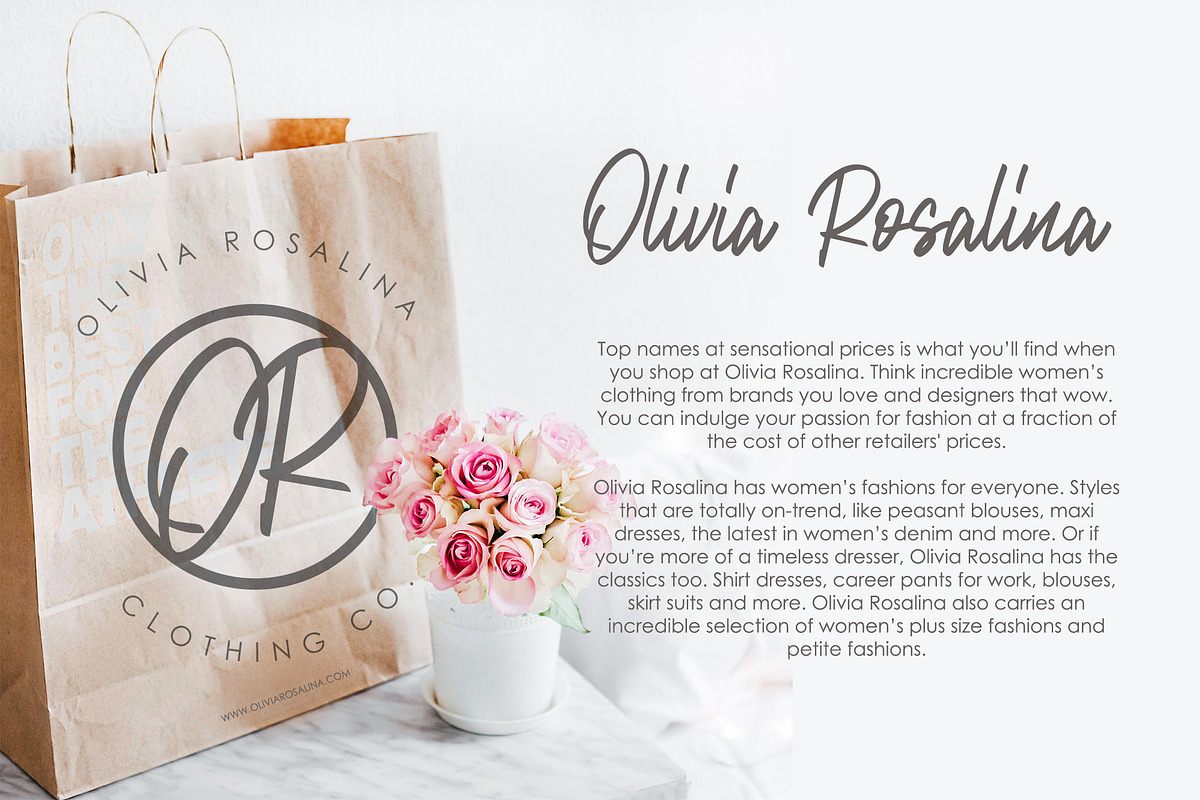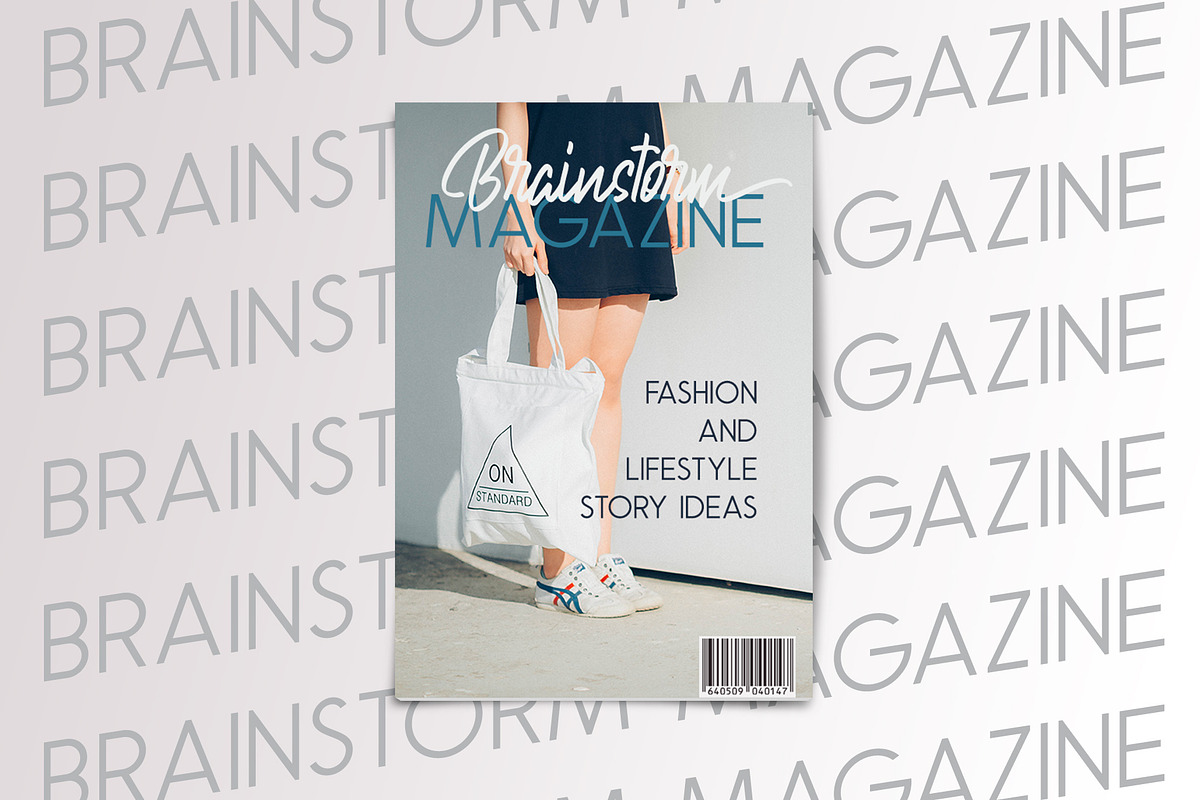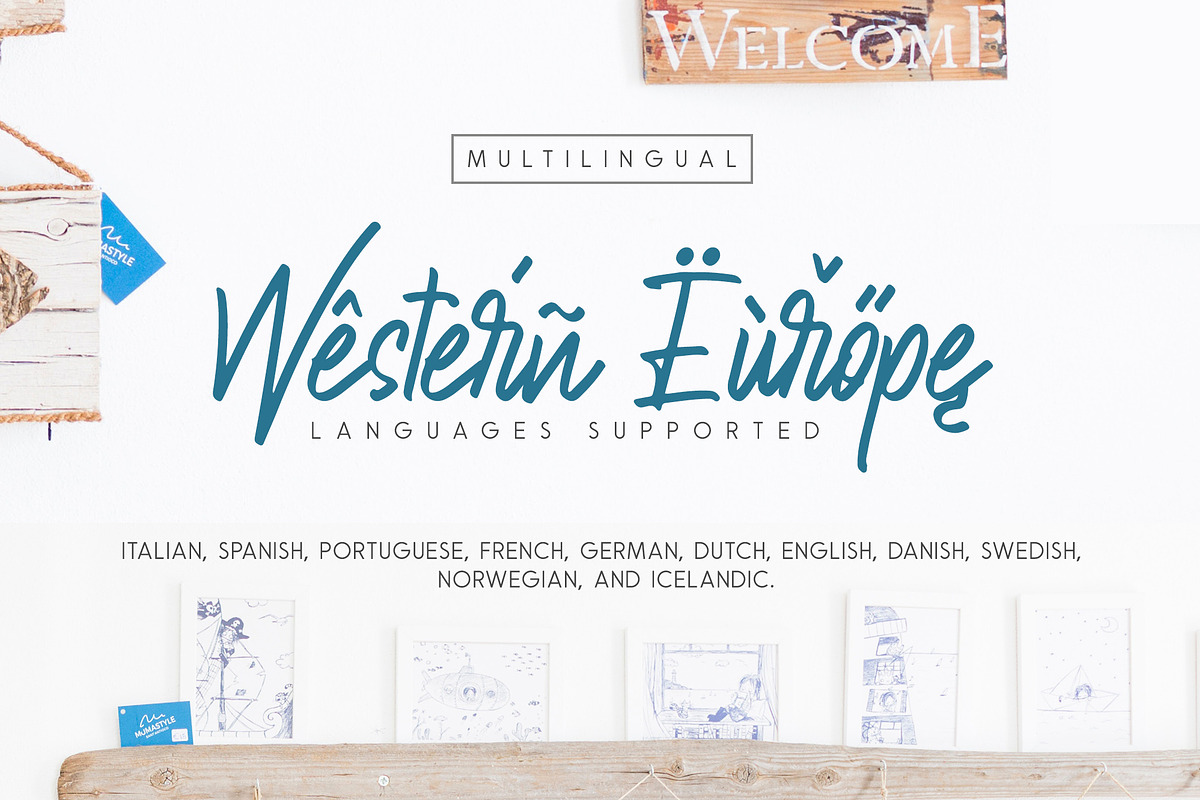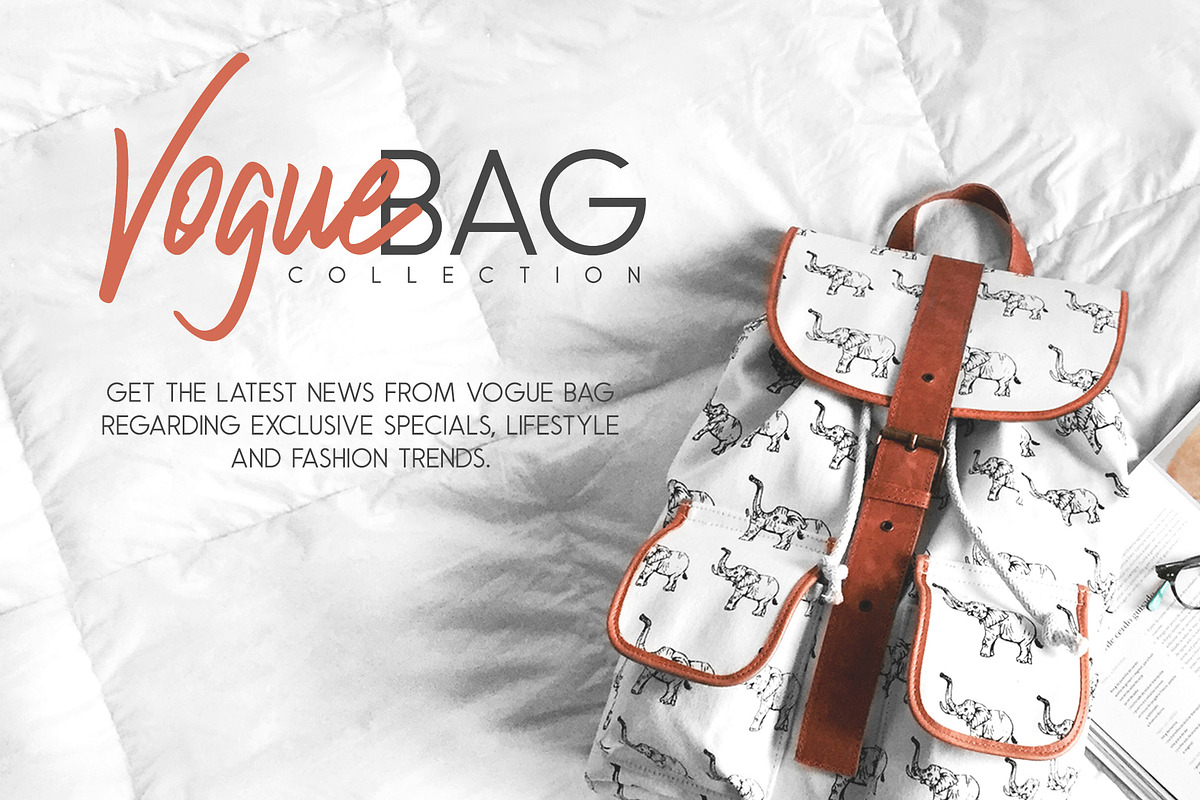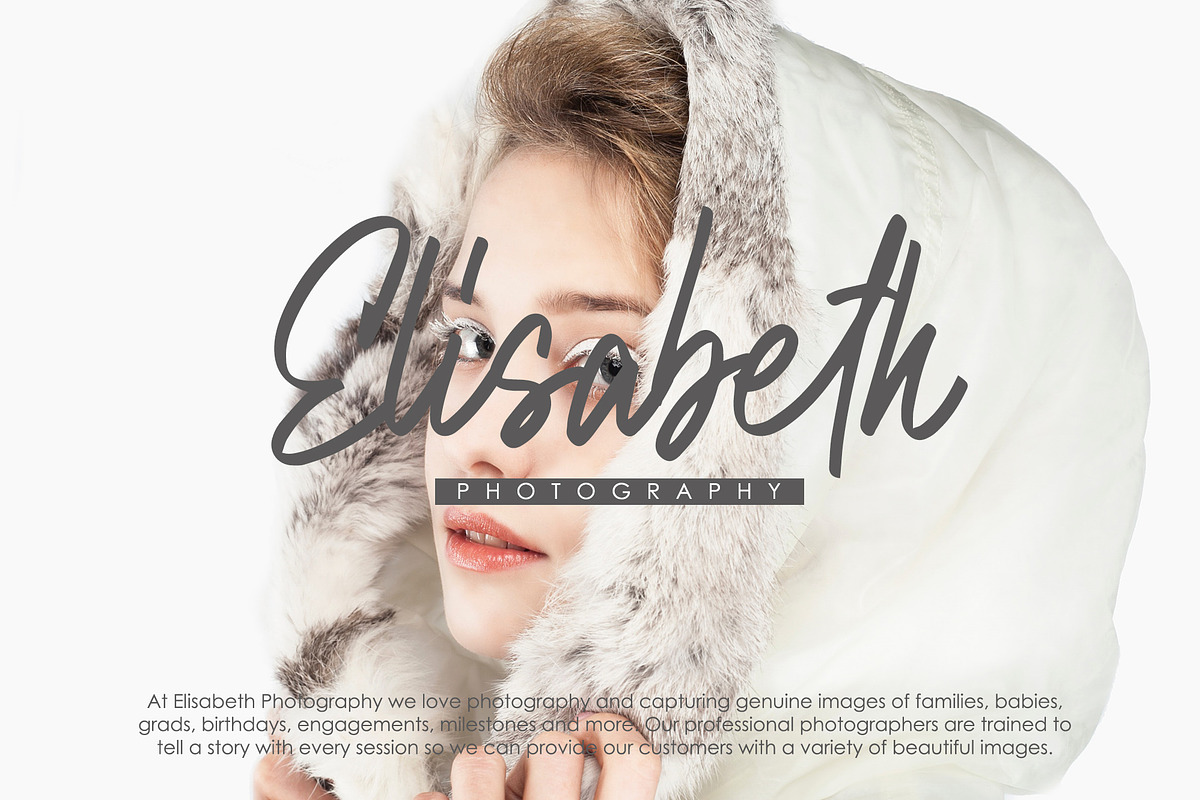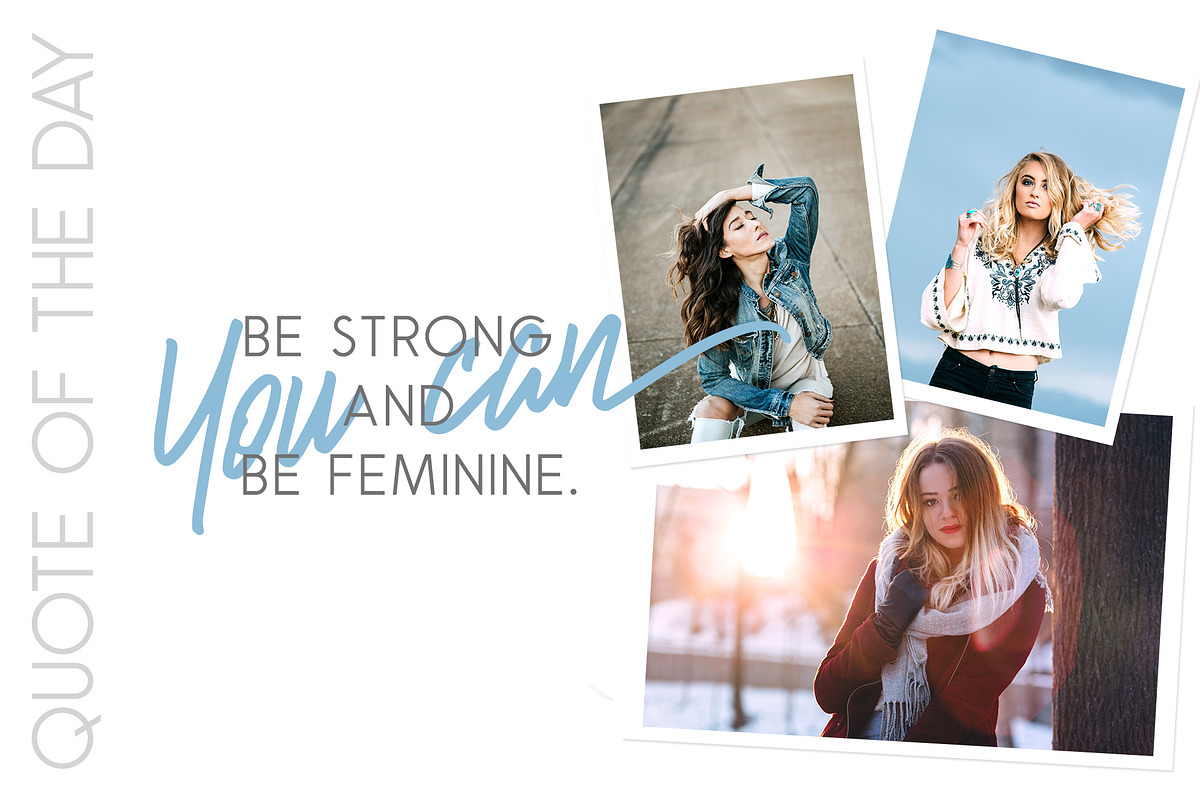
Natalia Rosaline (UPDATE)
Runsell Studio introduces a font that is special for fashion. This font matches applies in some designs such as the logotype, magazine, headline blog or website, packaging, branding, and more products. This font has a feminine impression. Natalia Rosaline there will be update features and other interesting fonts for extra bonus. This font is always exciting to design you create.
This font included Natalia Rosaline.otf that perfectly for your design, Nalatia Rosaline comes with uppercase, lowercase, number, punctuation also featured stylistic character.
Multilingual support - spread your message globally ÀÁÂÃÄÅAAÆÇCCDÈÉÊËEEÌÍÎÏLÑNNÒÓÔÕÖOŒØRR